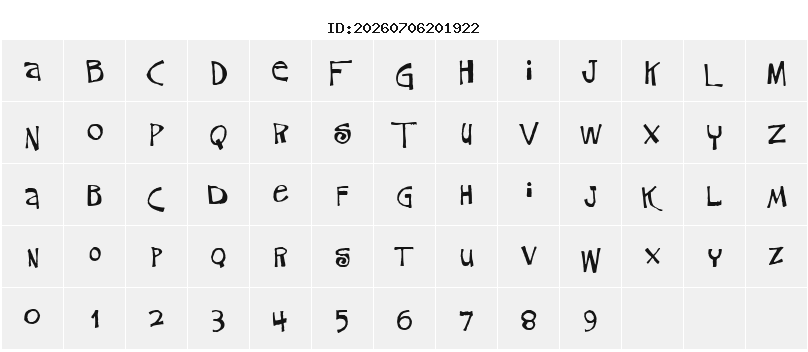
About DenneyOne.ttf
DenneyOne.ttf is a modern, elegant sans-serif font designed for ultimate readability and visual harmony. Perfect for branding, headlines, web design, and print materials.